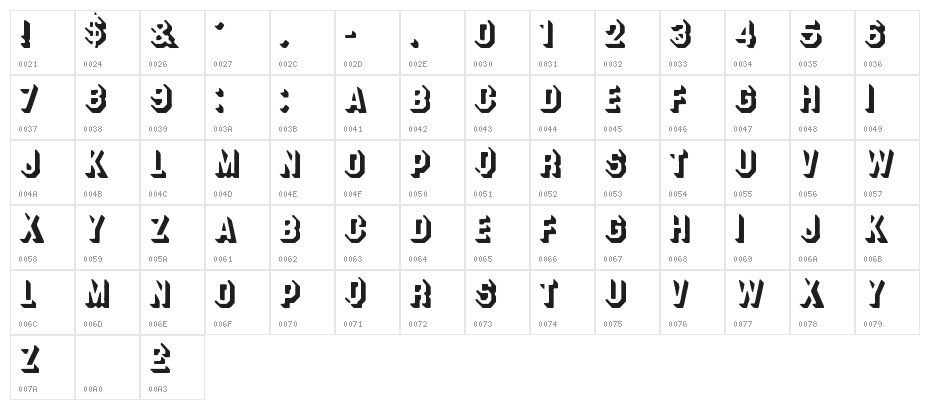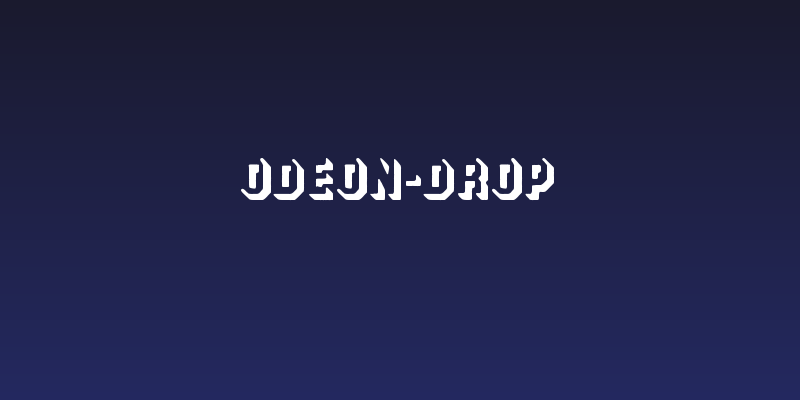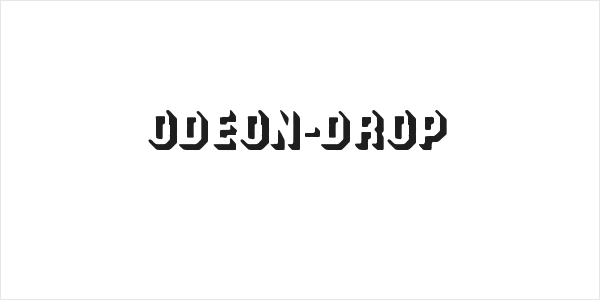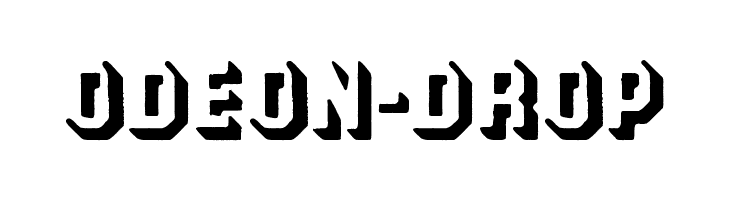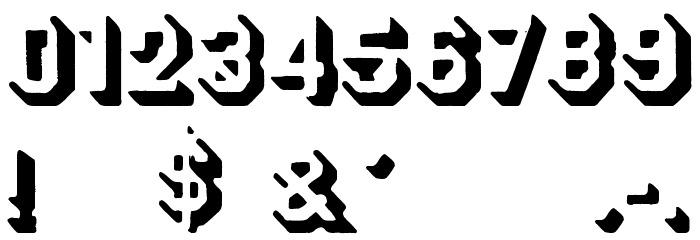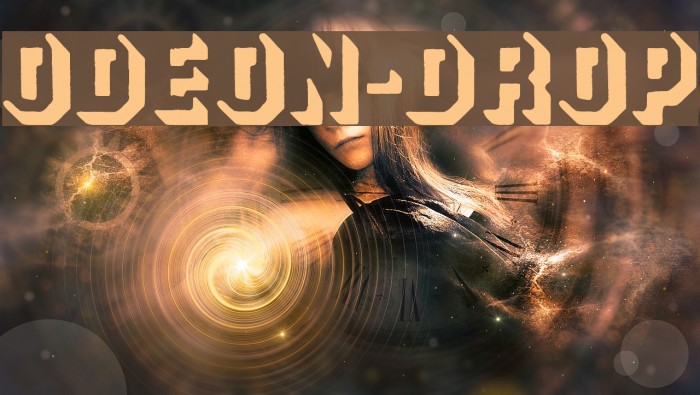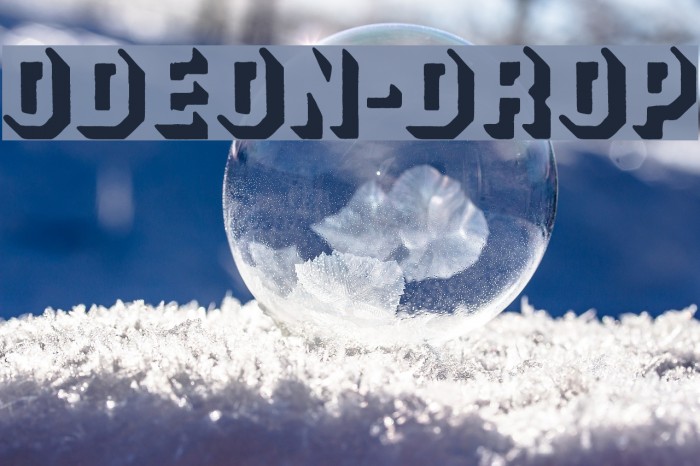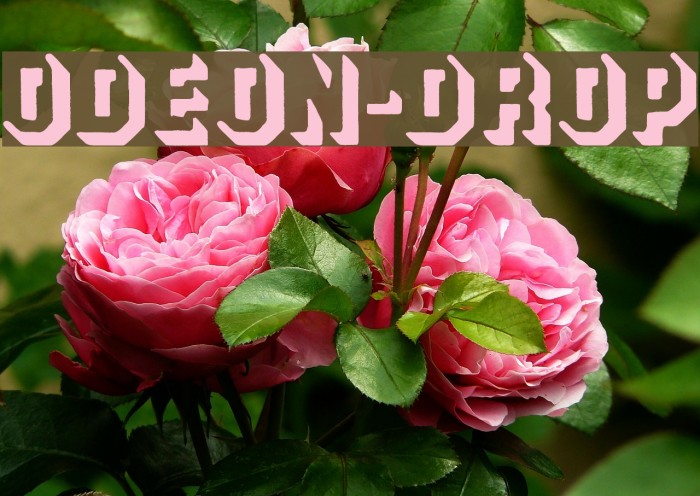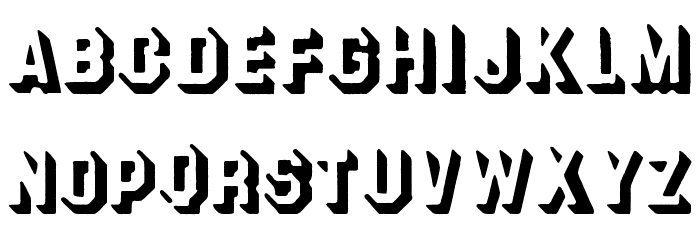
ODEON-DROP Font
ODEON-DROP Description
This font features a bold, three-dimensional drop shadow effect that gives it a striking and dynamic appearance. The characters are uppercase with a strong geometric structure, making them highly legible and impactful. The font's design incorporates sharp angles and clean lines, which contribute to its modern and industrial aesthetic. The drop shadow adds depth and a sense of movement, making it ideal for attention-grabbing headlines and titles. The numbers and special characters maintain the same bold style, ensuring consistency across all text elements.
| Proposed Projects | Ideal for posters, signage, branding, and any project requiring a bold, eye-catching typeface. |